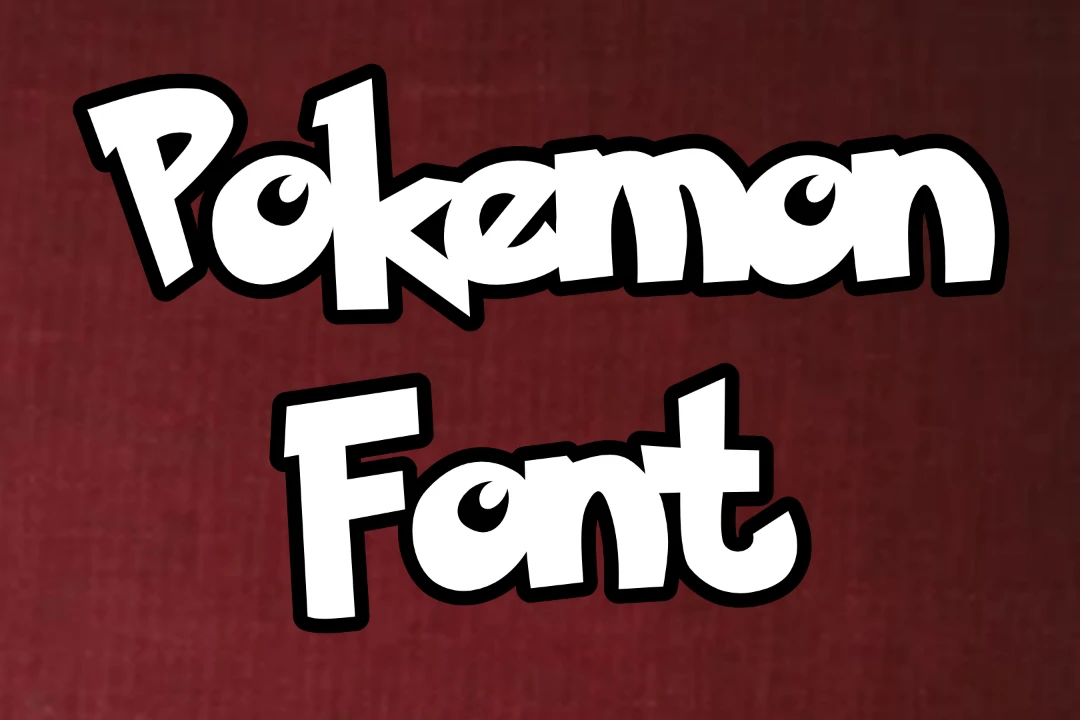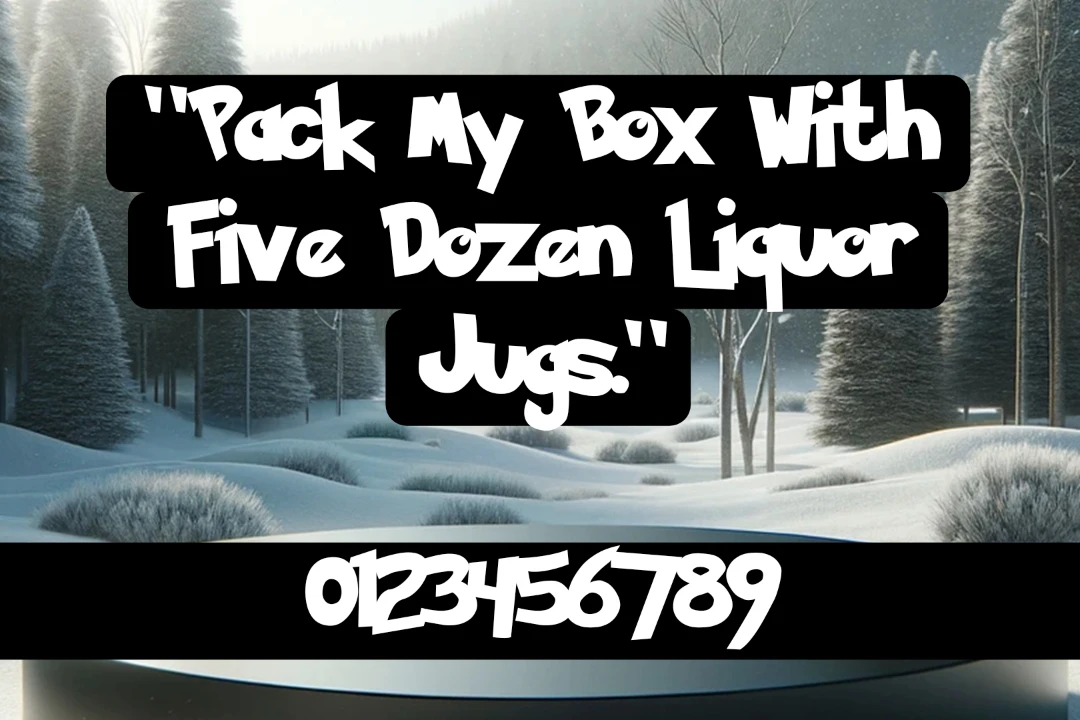
The Pokémon font is a playful typeface under the display category. Designed to mimic the iconic lettering from the popular Pokémon franchise, this texture is perfect for adding a touch of childhood magic to your projects.
This unique texture is bold and whimsical, capturing the essence of the beloved Pokémon series. It is available in multiple styles, allowing flexibility in your creative projects.
Uses of Pokémon Font
It is perfect for enhancing creative projects with a touch of nostalgia, making it ideal for logos and branding, especially for game-themed brands and merchandise.
You can pair this font with Kabel Font and create outstanding projects. It’s great for creating eye-catching posters and flyers, adding a playful element to web design and digital content, and boosting.
| Name | Pokemon Font |
| Designer | Chequered Ink |
| Style | Display |
What font is the Pokémon font?
The Pokémon font is called “Pokémon Solid.” It closely resembles the lettering used in the Pokémon logo.